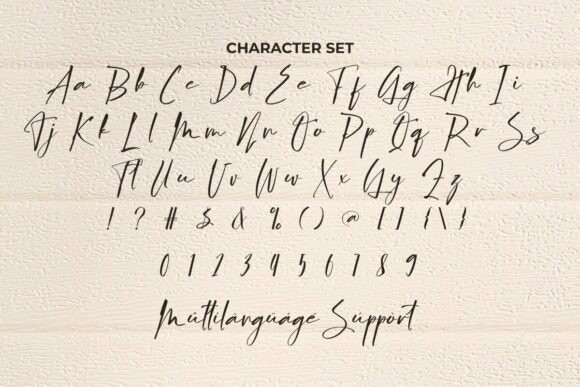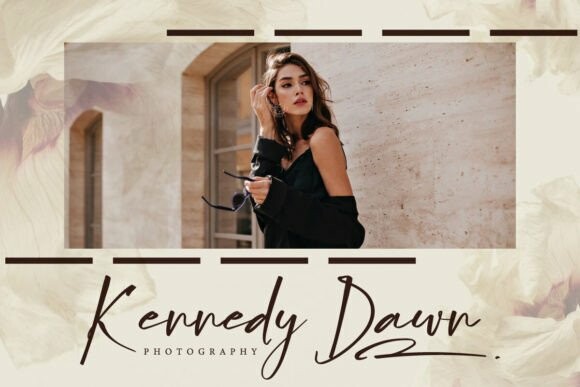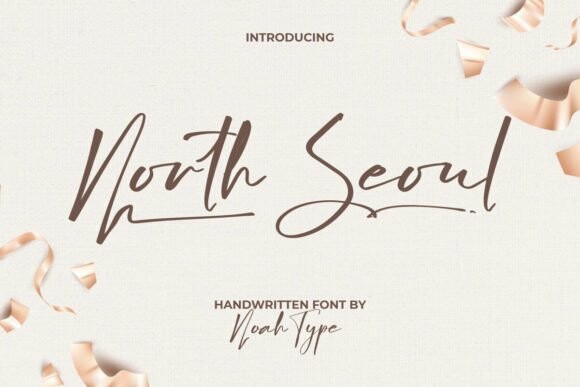
North Seoul Font
North Seoul Font is a signature script font with classy hand writing style exclusively designed by NoahType. This beautiful font will grab anyone’s attention when added to a design. It will be suitable for any industries, such as accessories, author, clothing brand, cosmetic, event or wedding organizer, handicrafts, perfume, photography, printing, publishing, writer, and more!